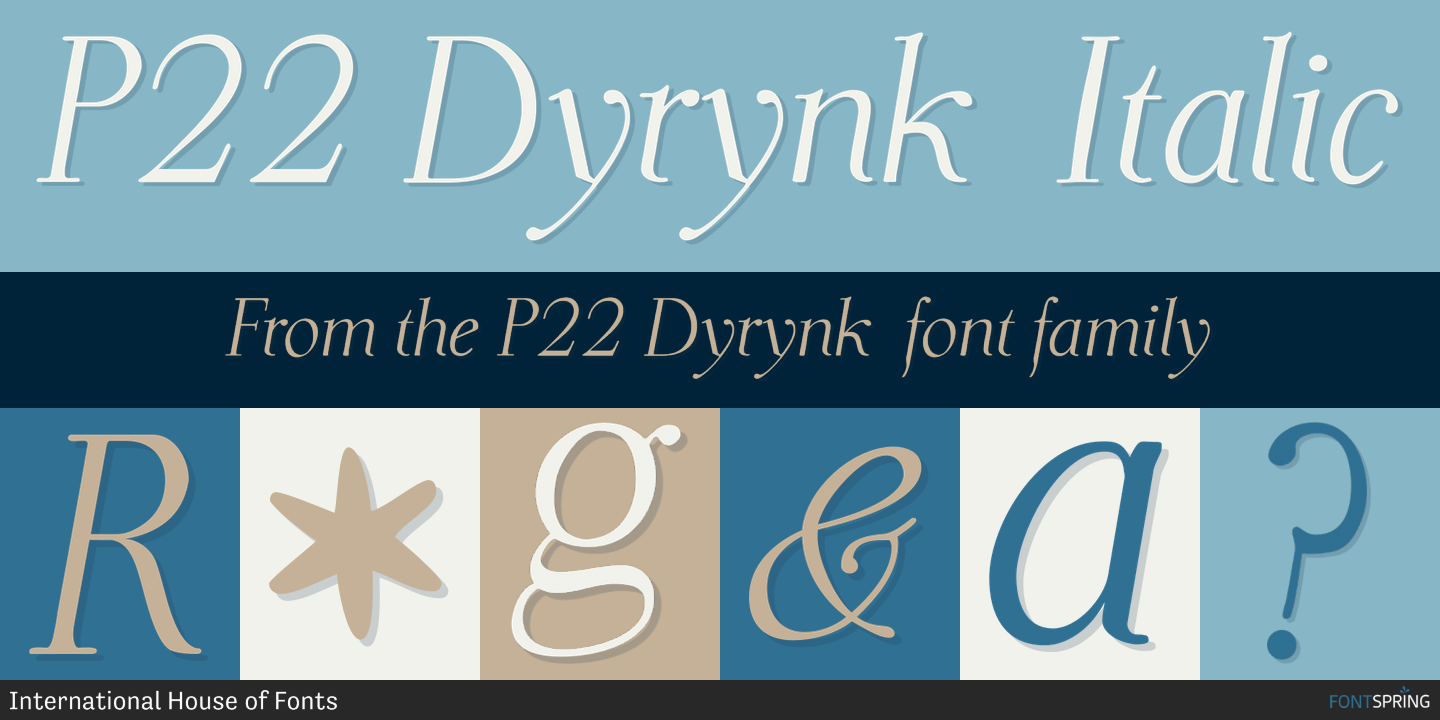
P22 Dyrynk Italic
P22 Dyrynk is a historical and serif font family. This typeface has two styles and was published by International House of Fonts.
This light text face was originally designed in 1929 by prominent Czech books-arts figure Karel Dyrynk. Irregular serifs and unusual features give the impression of fine hand lettering rather than a cast metal typeface. This casual font is best suited for larger display sizes